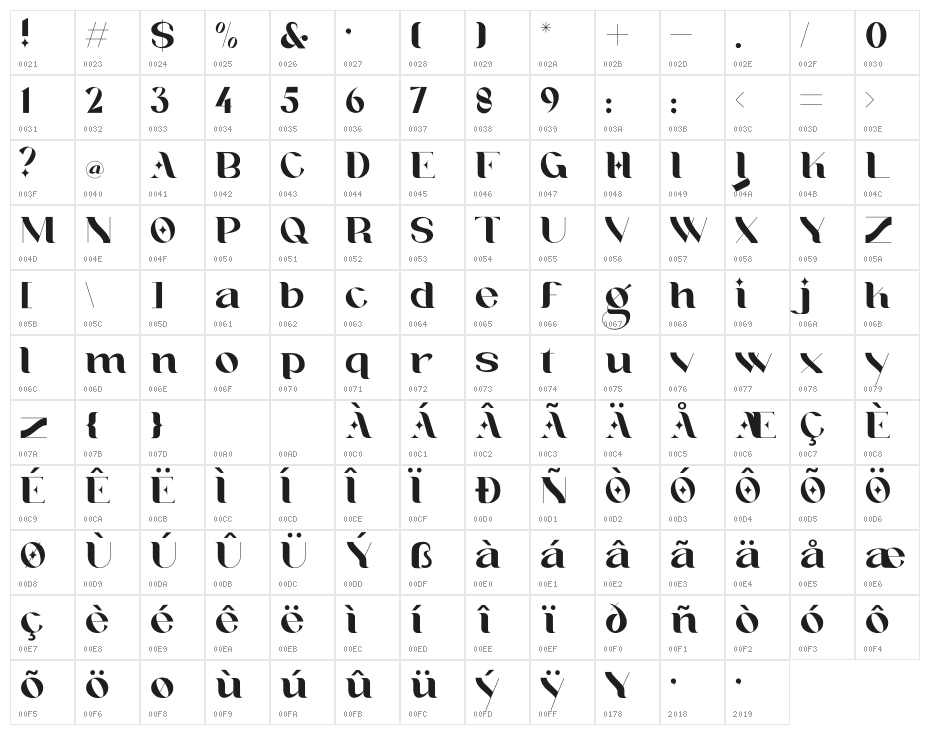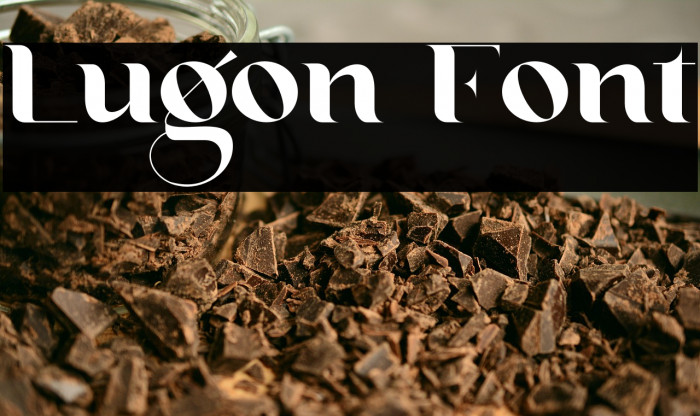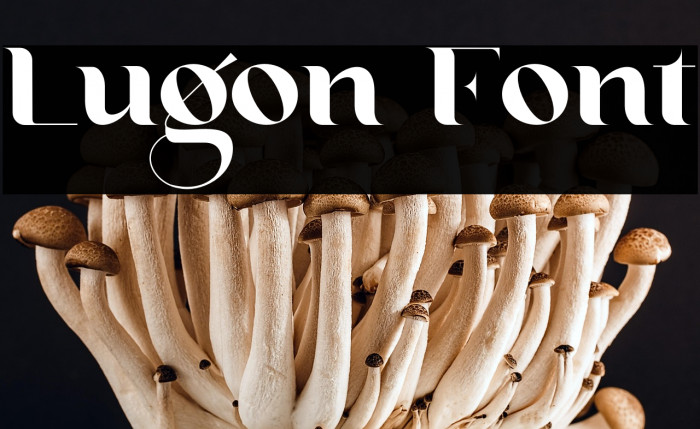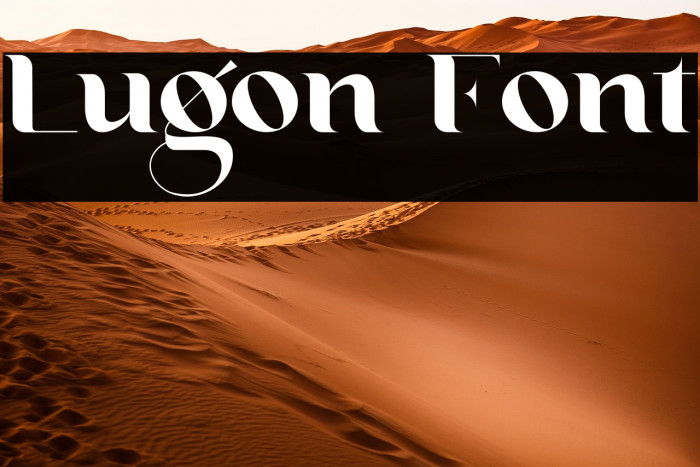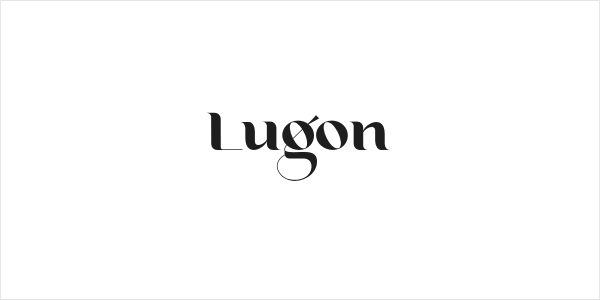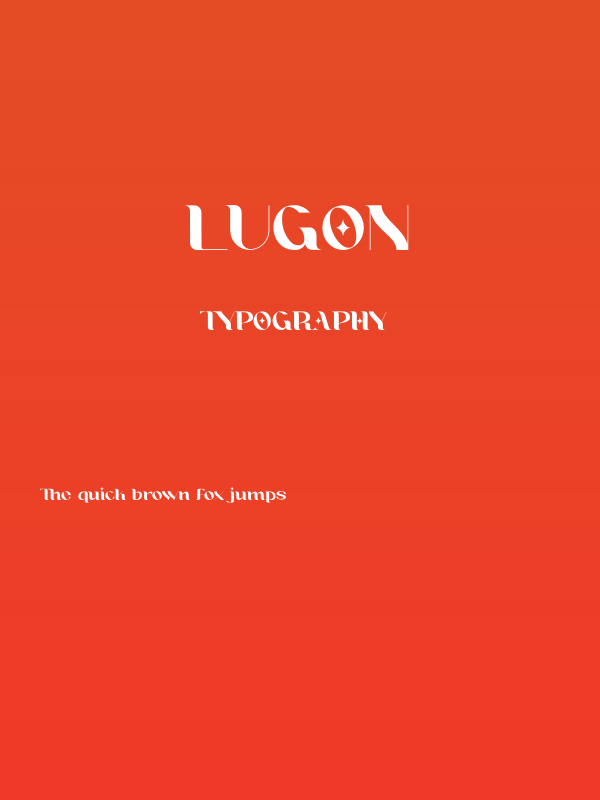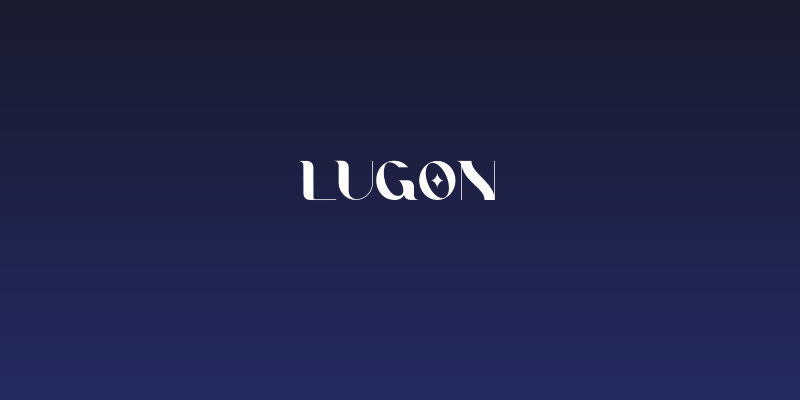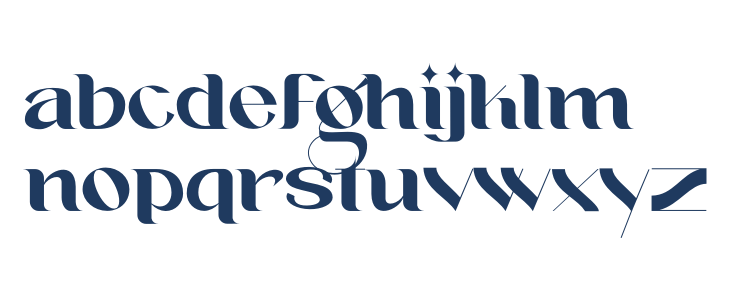
Lugon Font
Lugon Description
This font features a bold and striking design with high contrast between thick and thin strokes, creating a dramatic and eye-catching appearance. The uppercase letters have a unique geometric flair, with sharp angles and distinct cuts that add a modern edge. The lowercase letters maintain a fluid and elegant style, balancing the boldness of the uppercase with a softer touch. Numbers are equally bold, with a consistent weight that ensures readability. Special characters are designed with the same attention to detail, offering a cohesive look across all elements. This font is perfect for making a statement, combining modern aesthetics with a touch of classic elegance.
| Proposed Projects | Ideal for branding, advertising, and editorial design where a strong visual impact is desired. |